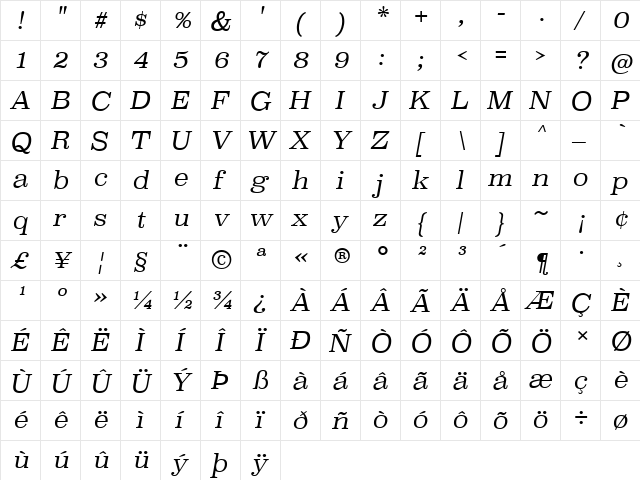
Superclarendon Light Italic
Light Italic · Ray Larabie Ray Larabie ·
Design Context for Superclarendon Typeface
Superclarendon combines the readability of serif typography with the visual weight of a slab construction, resulting in a typeface that feels both authoritative and approachable. The slanted form adds forward momentum and visual energy. The delicate stroke weight brings airiness and refinement to layouts.
Suited to magazines, political campaign materials, bold packaging, and any setting where authority matters.
Pro Tip: Use Superclarendon for headlines and subheadings where its slab serifs can make an impression. It also holds up well in mid-size body copy thanks to its sturdy construction.